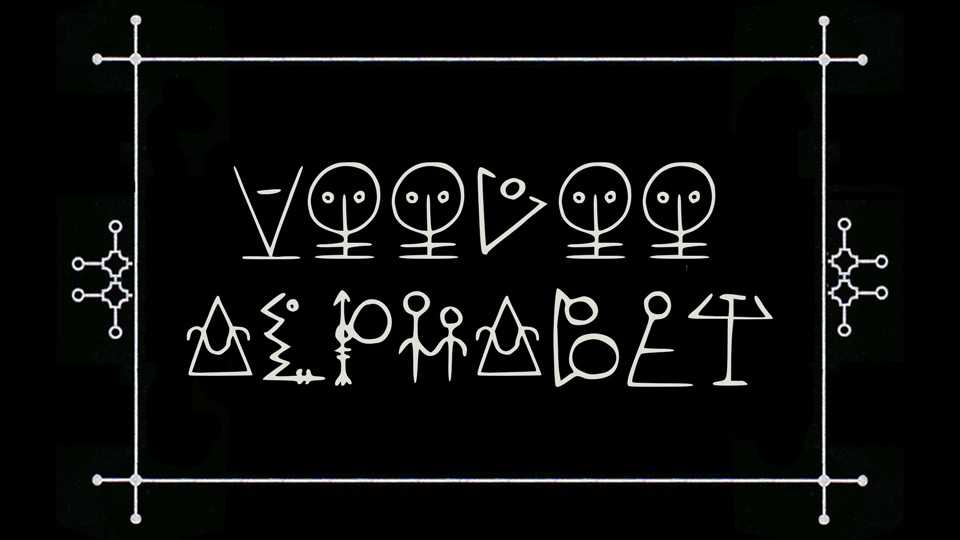
Download Voodoo Alphabet font, a decorative display typeface with ornate letters. With its unique look the font is suitable for posters, prints and graphic artworks.